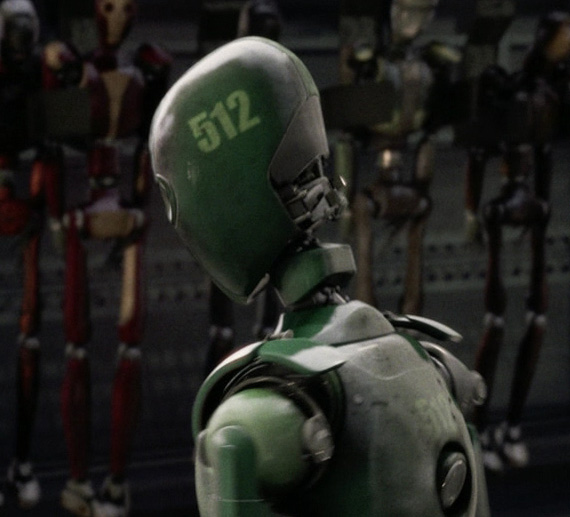
edit..........font identified as IMPACT
having no luck finding this font, any guesses?
Impact is the closest I can find. The only thing I'm not 100% on is whether or not the left side middle flat lines on the 5 and 2 are slightly angled upwards or flat (Impact is completely flat). It's hard to tell from this one blurry photo with the grittyness of the metal.
I checked for variants and similar fonts, and couldn't find anything that angles there though, but it's otherwise so close that you could edit it to match.
Font your looking for is Haettenschweiller
I came across that one when I did my search, but I think Impact is a bit closer. The top of the 1 doesn't appear to protrude far enough out, the bottom end of the 5 comes up too far, there's too large a gap between the top of the 5 and the curve, and a few minor inconsistencies with the 2.
Here's a quick comparison with Impact.
I think blob has the closest so far.
What threw me is the upward angle on the left hand side of the 5.
I have tried to find a better pic on the blue ray but the robots are in motion most of the time and have
A fair bit of motion blur.
Its possible that impact was what they used but maybe modified it slightly for the film
Or it is impact and it just comes out that way on moving CGI.
I have all the blu-ray frames ripped to my HD. Here is the clearest one I could find...
Ahh that's much better than my effort.
Impact it is.